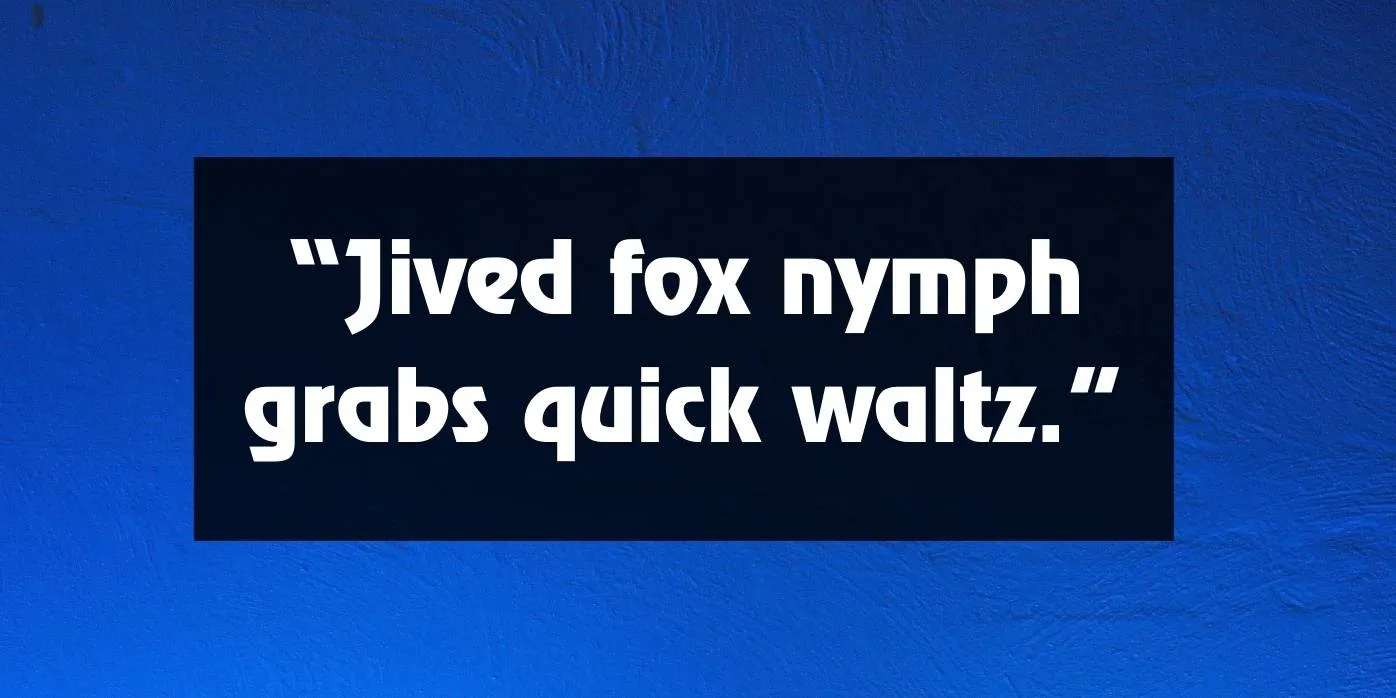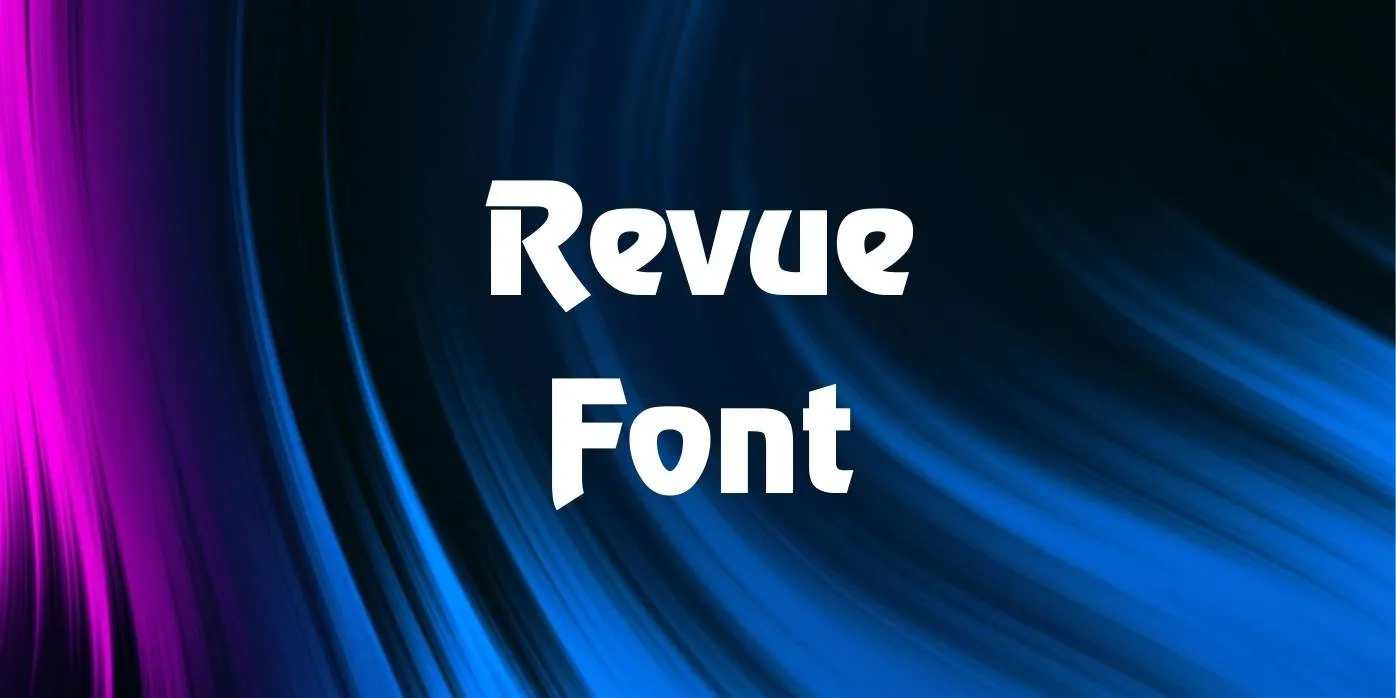
Revue Font
In this post, we consult about a very astonishing typeface named Revue Font. This classy font family was designed by Aiyari. It belongs to the Fancy font family. This awesome typeface comes in more than 67 unique Glyphs.
These glyphs increase its overall performance. This classy typeface is available in OpenType and True Type features. This gorgeous typeface includes different and unique swashes. Also, it includes Italic shape letters, these make it perfect for various instant designs.
This stylish font is very famous in the design industry due to its advanced features. Because of that reason this stunning font is used everywhere in the whole market. This glorious typeface is suitable for CSS. Revue Font is best for various types of Graphics designs.